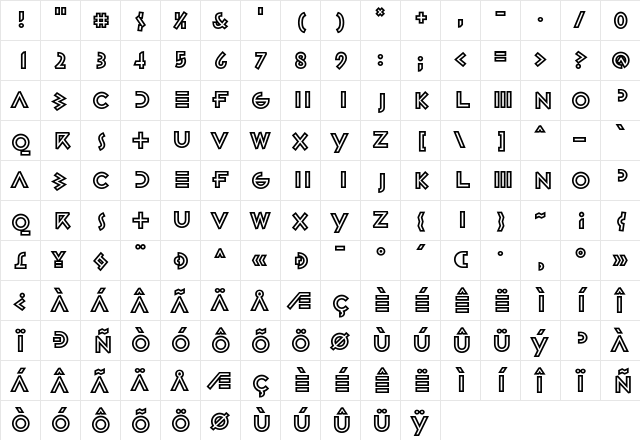
Gestalt HTF-Linear-Outline
Design Context for Gestalt Typeface
Gestalt brings ornamental detail and strong personality to headlines and identities, where visual impact matters more than quiet functionality.
Font Pairing: Pair with a clean neutral sans-serif for body copy to let Gestalt's character lead without overwhelming the composition.
Pro Tip: Use Gestalt exclusively at display sizes — it was designed to be seen, not read at length. Let a neutral companion handle body copy.